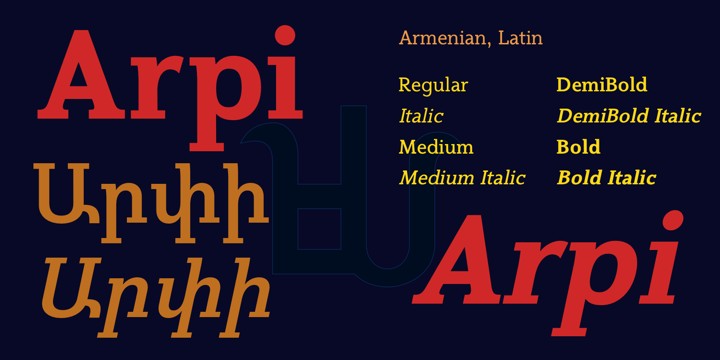
Ghea Arpi
Ghea arpi is a font includes Armenian and Latin alphabet systems. This font was created by Edik Ghabuzyan in 2009. Font recommended is for book, store, office, magzine Download Ghea api font Prestigio font detail Foundry : Edik Ghabuzyan Released : Aug 8, 2011 Price: $ 160,00 ;